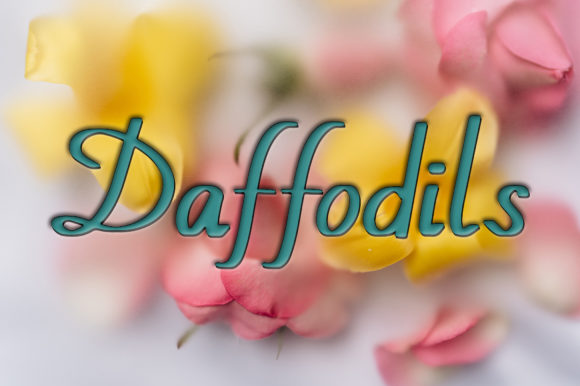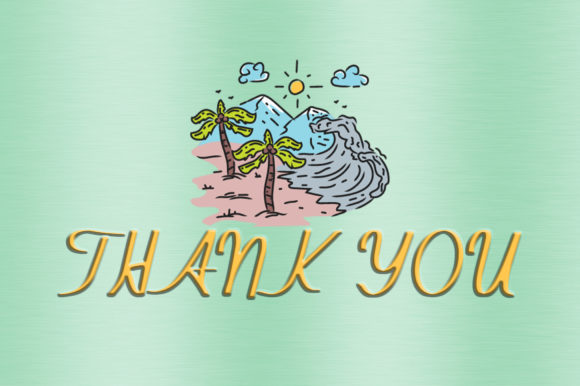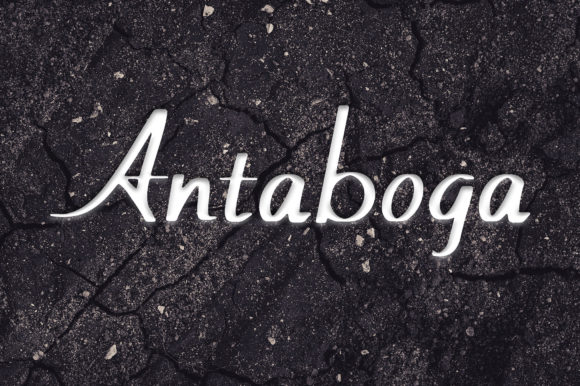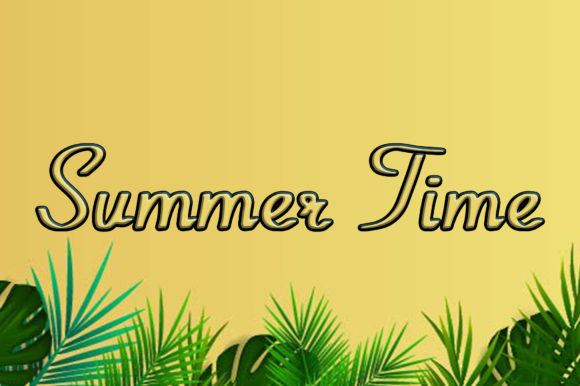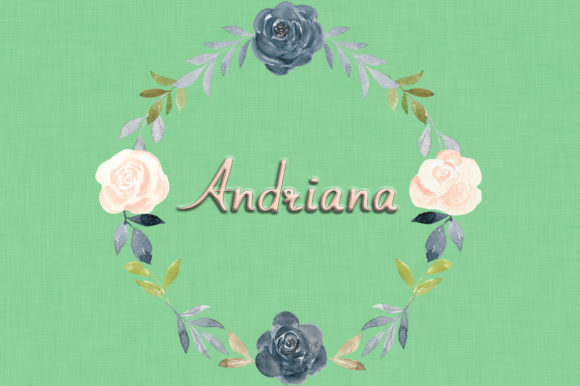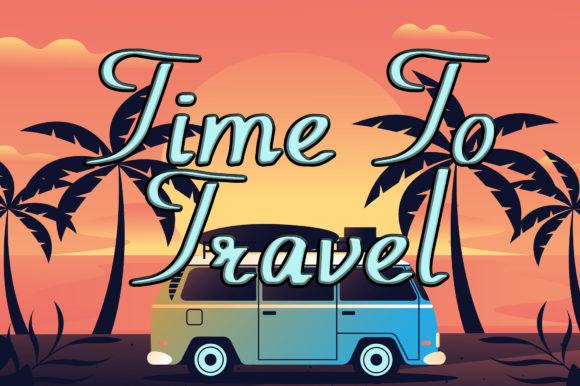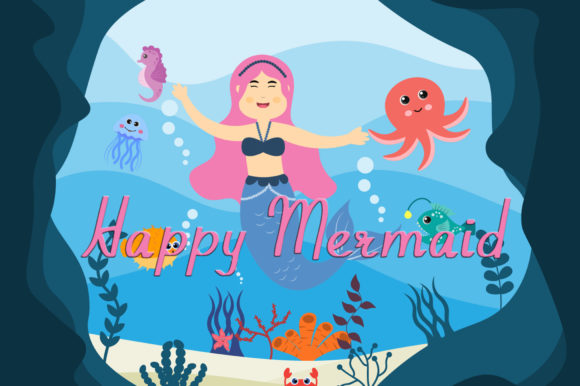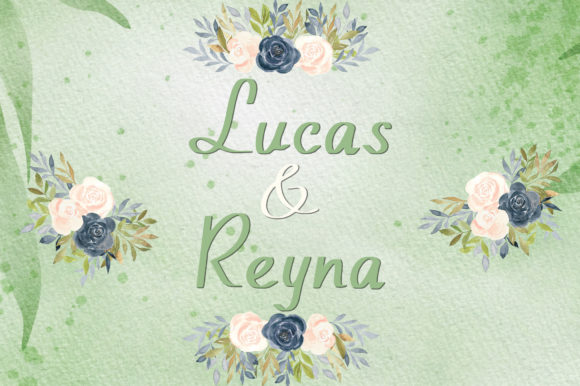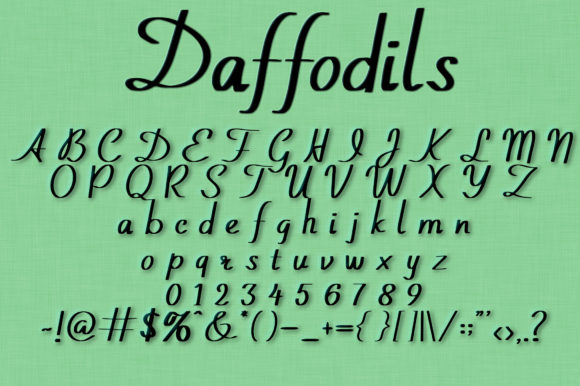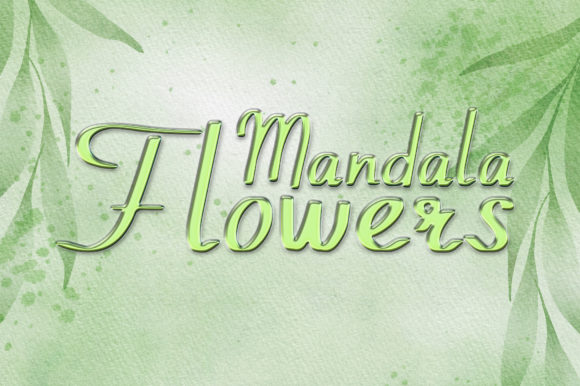
Daffodils Font
About Daffodils Font
Daffodils is a lovely script font featuring charming, playful characters that seem to dance along the baseline. Add this font to your most creative ideas, and notice how it makes them stand out!